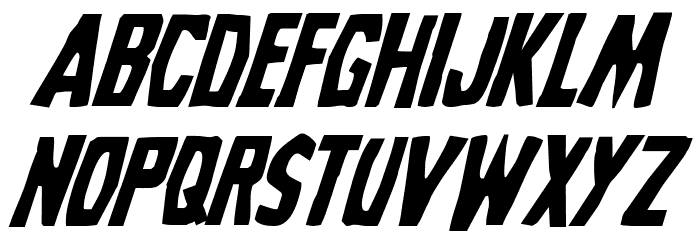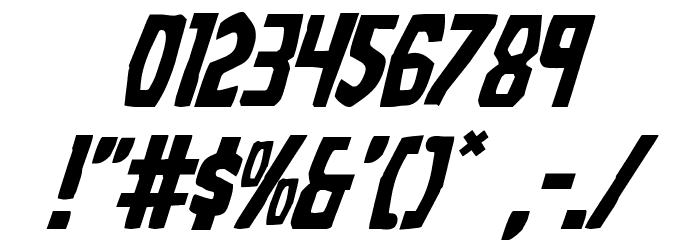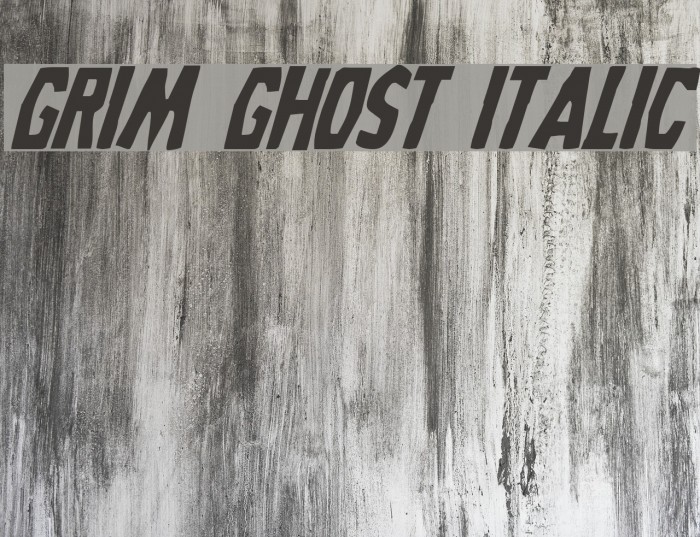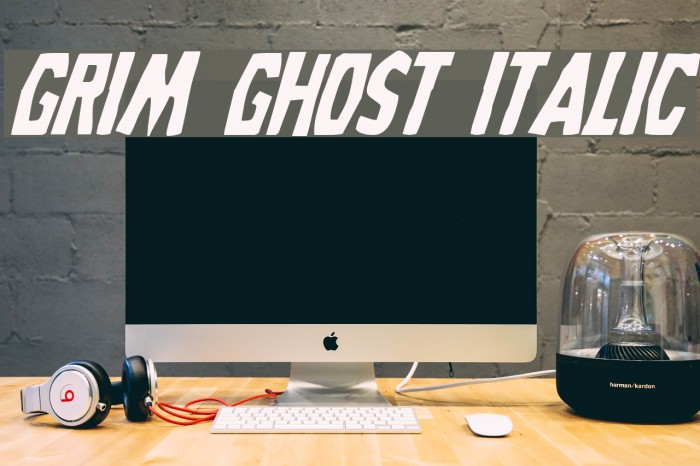
Grim Ghost Italic Font
This font features a bold, italicized style with a distinct slant that gives it a dynamic and energetic appearance. The characters are thick and robust, with sharp angles and a slightly condensed form. The uppercase and lowercase letters maintain a consistent style, ensuring readability while adding a touch of flair. The numbers and special characters follow the same bold and italicized design, making them stand out prominently. This font is ideal for projects that require a strong visual impact and a modern, edgy feel.
A bold, italicized font with a dynamic and energetic style.
- Proposed Projects: Ideal for sports branding, action movie posters, and dynamic advertising campaigns.